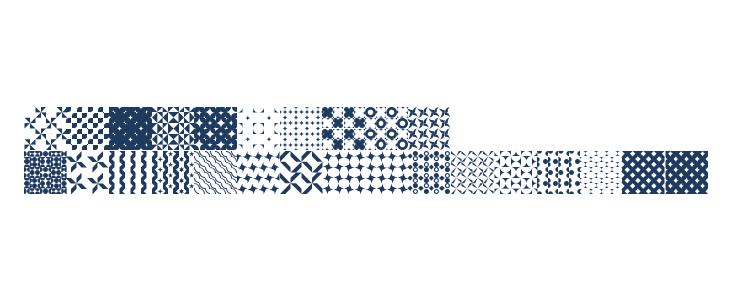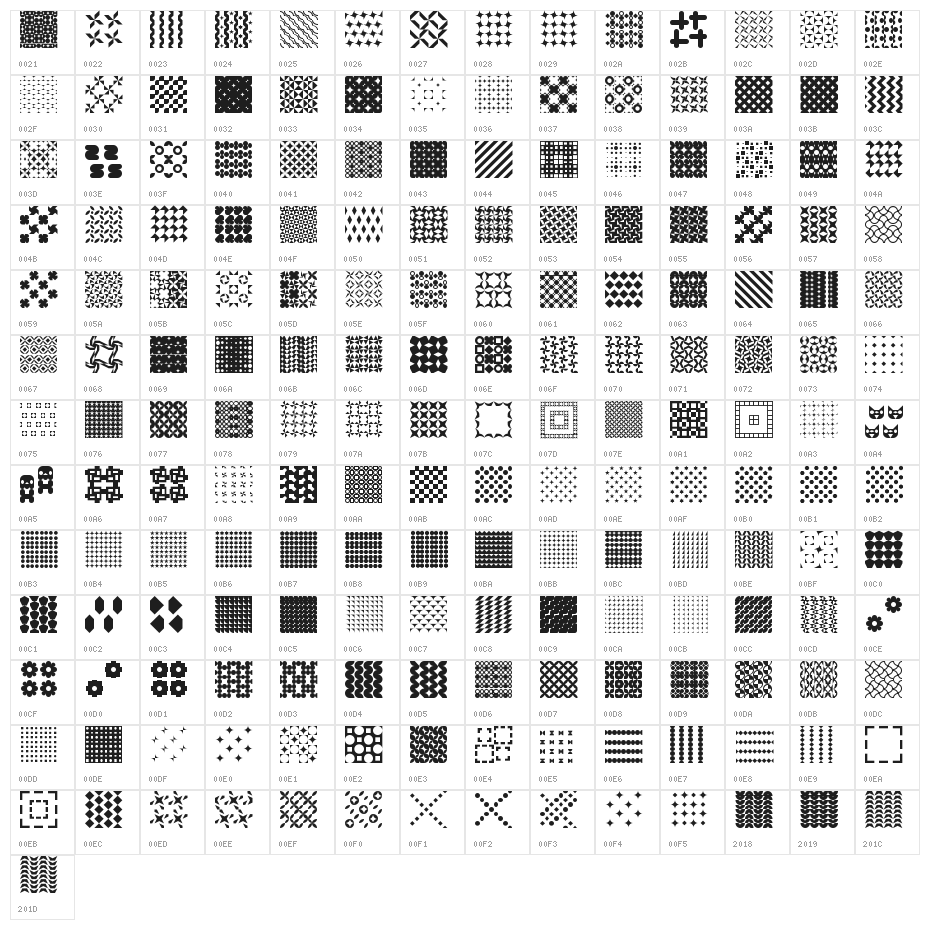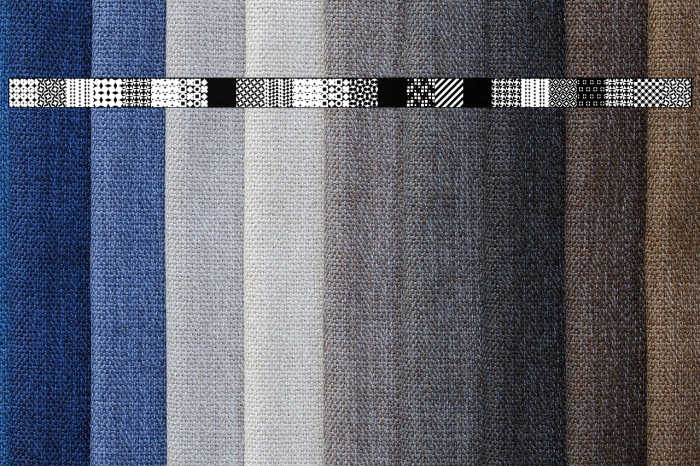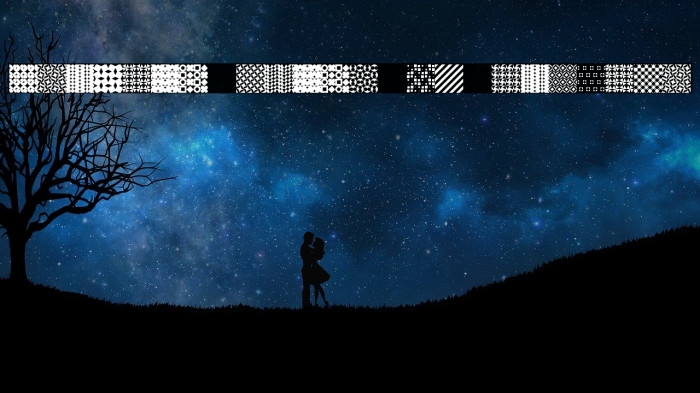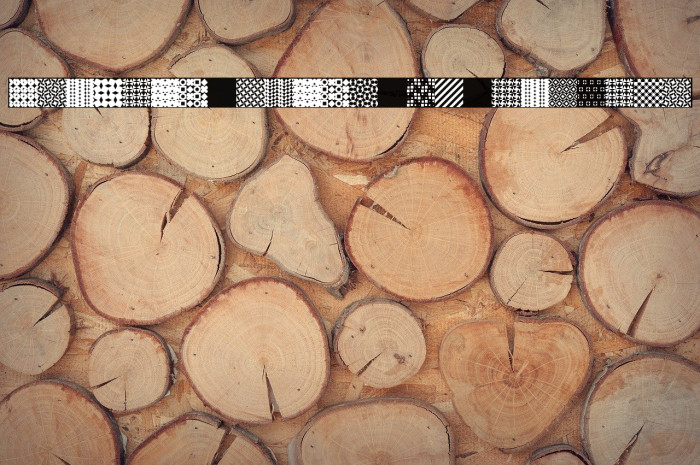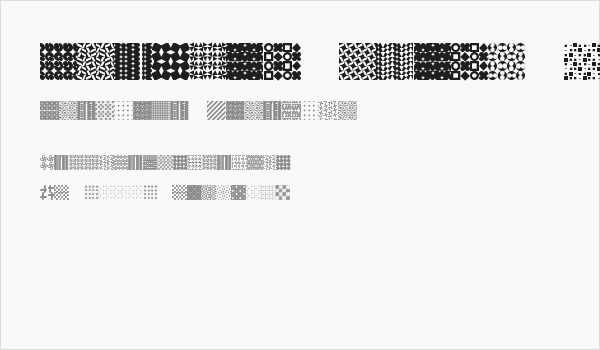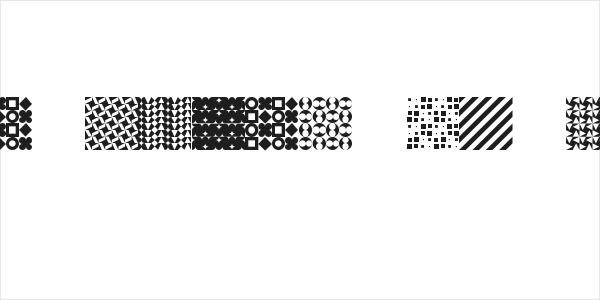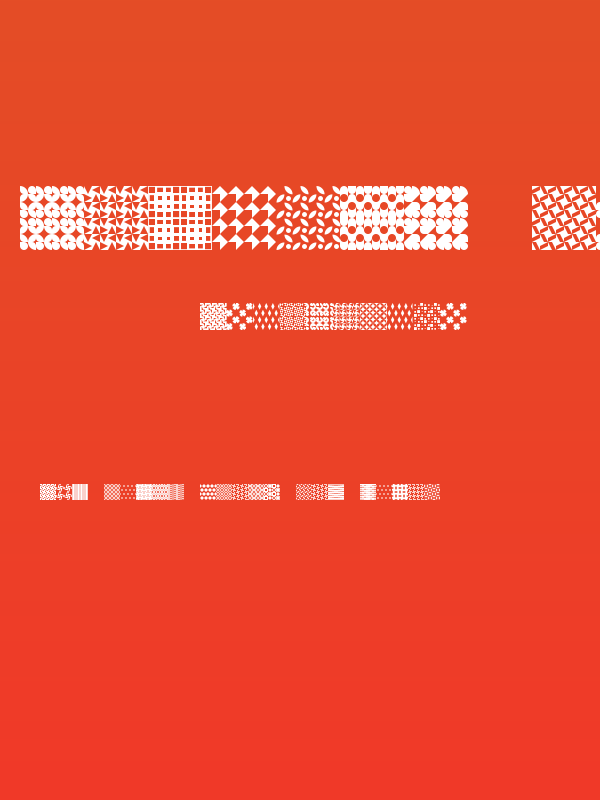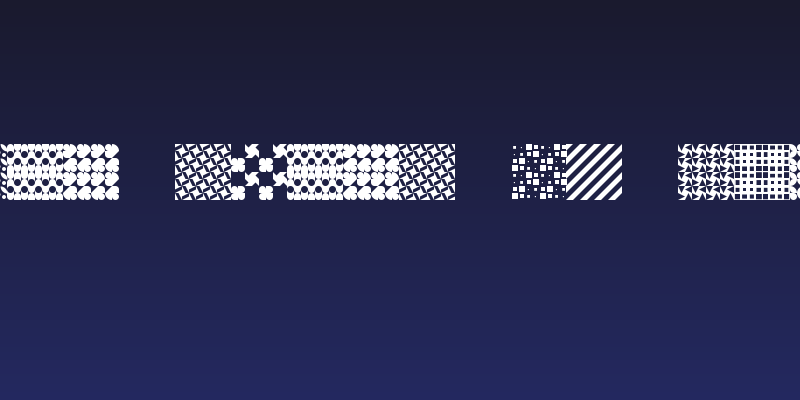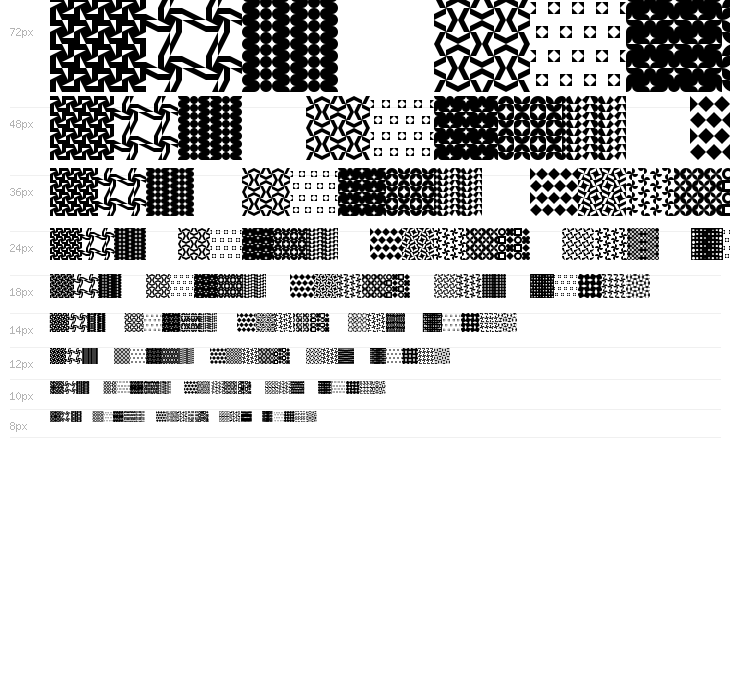
Gremlin Skins HD Regular Font
A decorative display font composed entirely of bold, high-contrast geometric patterns and abstract shapes, with each character represented by a unique black-and-white motif. The glyphs are square or rectangular, featuring a wide variety of repeating elements such as circles, diamonds, stripes, and interlocking forms.
| Overall Style | Decorative, Abstract, Modern |
| Use Case | Logos, Headlines, Posters, Artistic projects |
| Proposed Projects | Posters, album covers, branding, digital art, textile design, creative headers. |